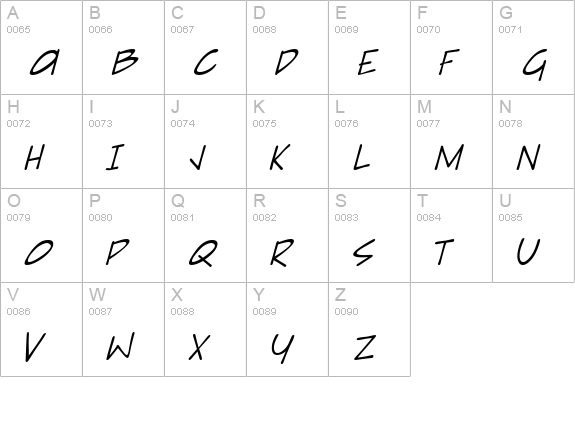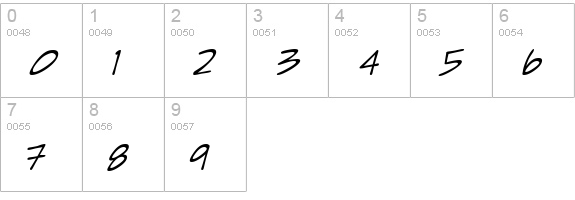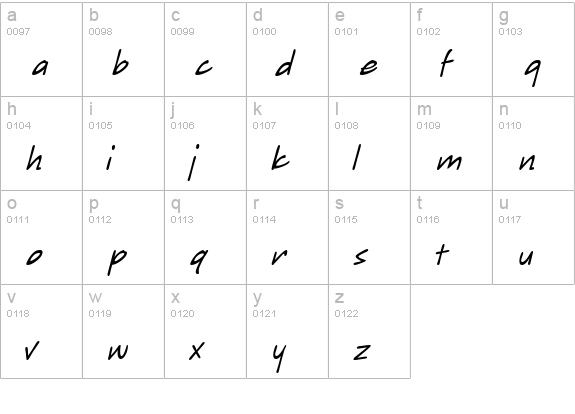
Sketchpad Note Italic Font Details
Sketchpad Note Italic is a distinctive, italic variant in the Sketchpad typeface family \xE2\x80\x94 well suited to design and typography projects.
Introducing Sketchpad Note Italic, a versatile and captivating font that adds a touch of elegance and artistic flair to any design project. This unique italic font is inspired by the fluid strokes and curves of a skilled artist's sketchpad, bringing a sense of creativity and individuality to your typography. Sketchpad Note Italic effortlessly combines the best of both worlds, striking the perfect balance between legibility and artistic expression. Its slightly slanted letterforms give your text a dynamic and sophisticated appearance, while maintaining readability and clarity. Whether used for headlines, body text, or creative displays, this font is sure to make a lasting impression. But what sets Sketchpad Note Italic apart is its availability to download for free at FontsMarket.com. Yes, you read that right – this exceptional font is freely accessible to all, making it an invaluable resource for designers, artists, and typographers alike. Say goodbye to expensive font licenses and hello to unlimited creativity without breaking the bank. With Sketchpad Note Italic, your designs will come to life with a touch of elegance and artistic charm. Its versatility allows it to seamlessly adapt to a wide range of design projects, from branding and packaging to posters and invitations. Let your imagination run wild as you explore the endless possibilities that this font brings to your creative endeavors. So why wait? Elevate your designs with the captivating allure of Sketchpad Note Italic. Download it for free at FontsMarket.com and unlock a world of creativity at your fingertips. Experience the beauty and freedom of this font, and watch as your designs come to life with a touch of artistic brilliance.